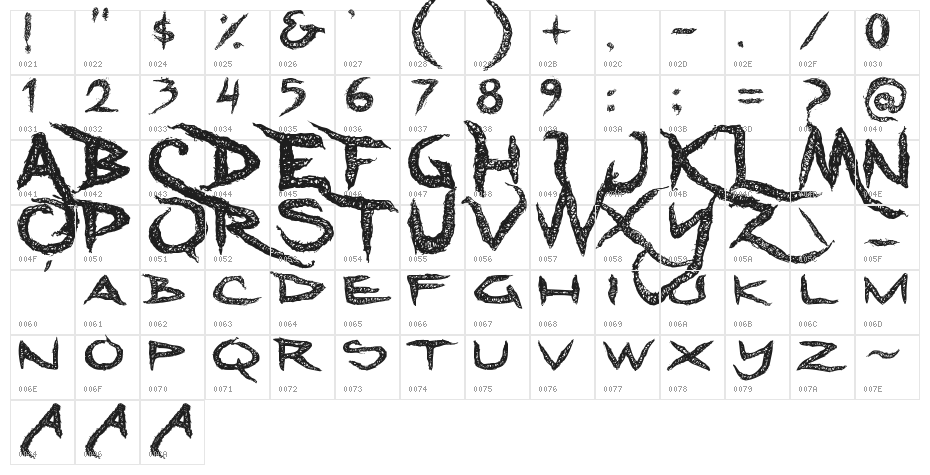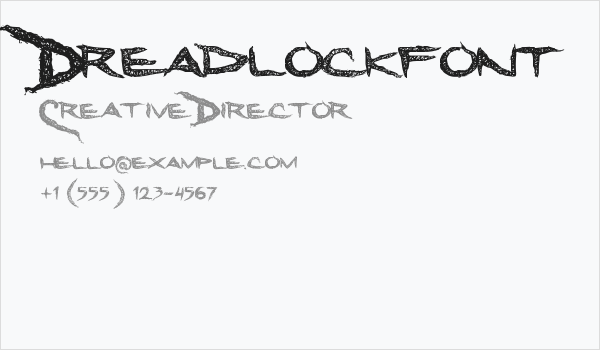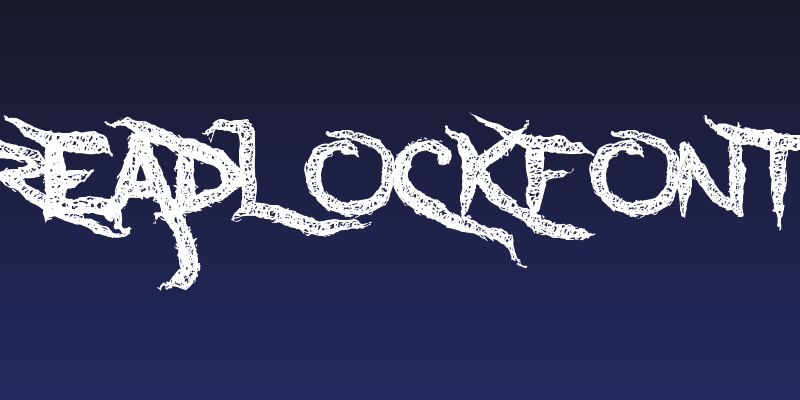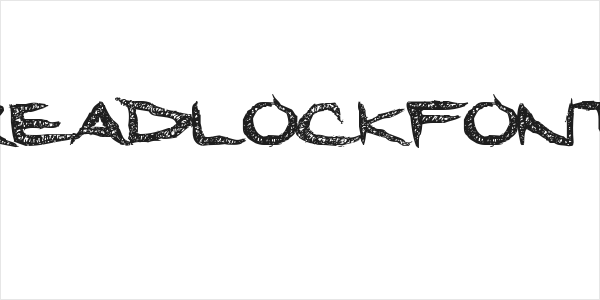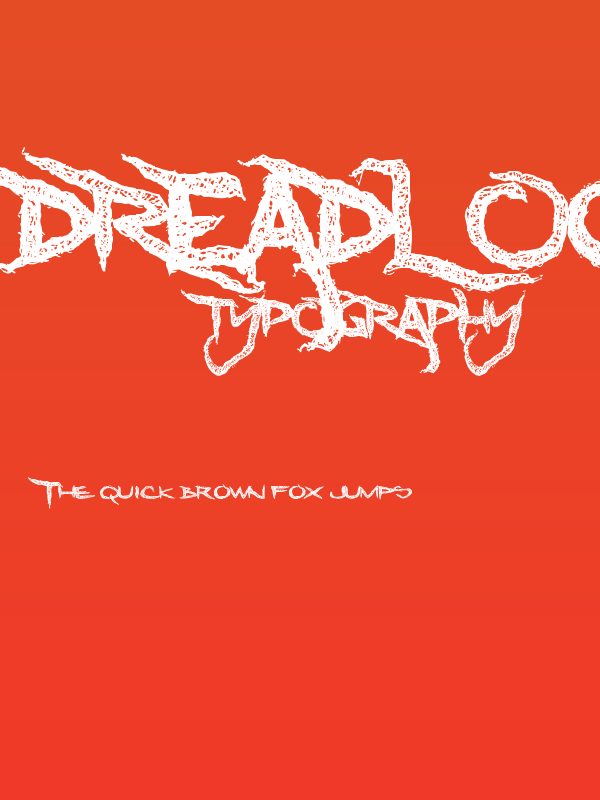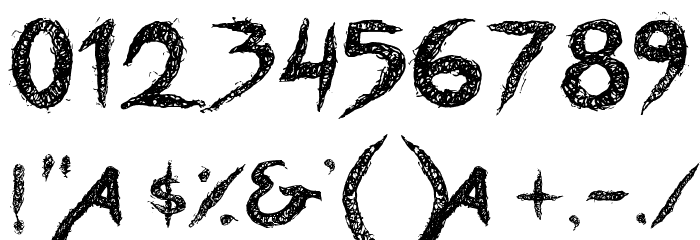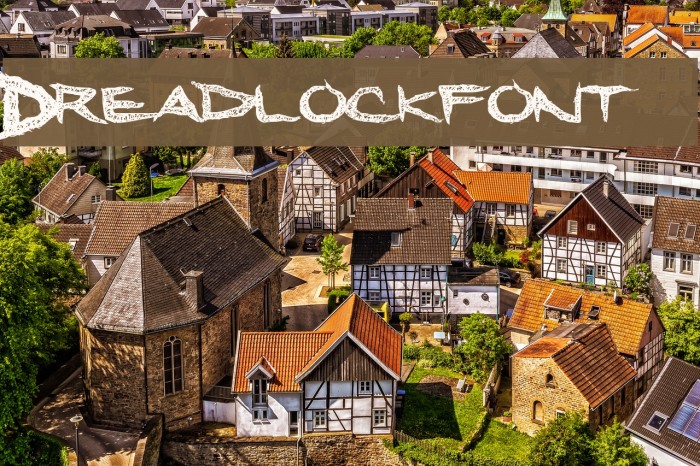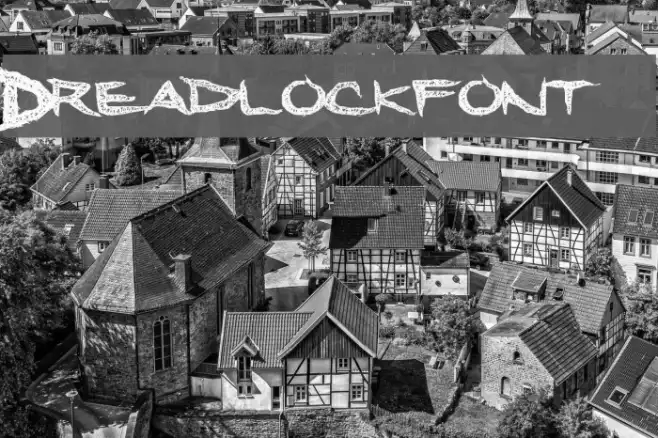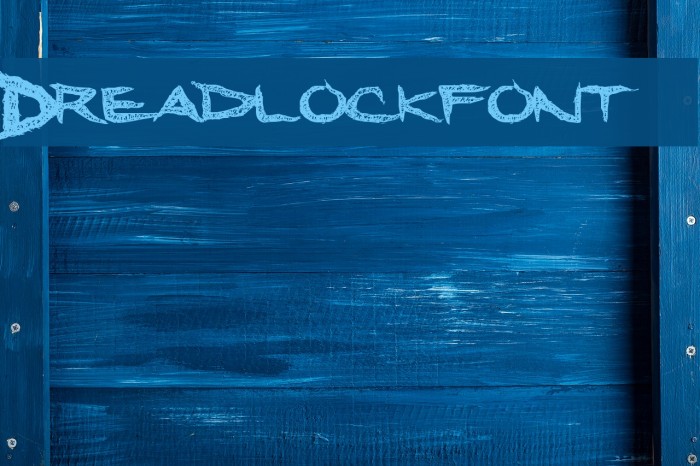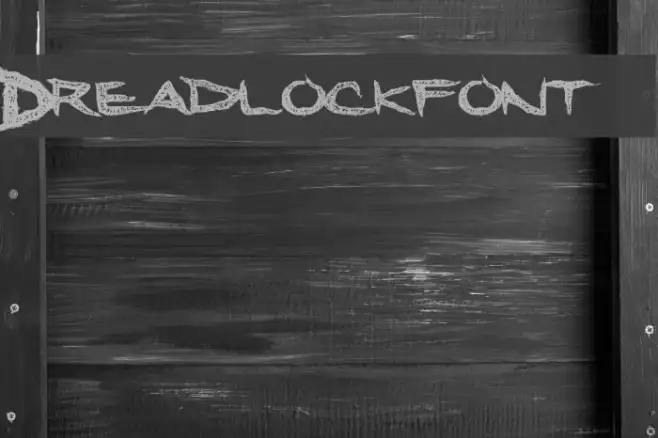
Dreadlockfont Font
Dreadlockfont Description
This font features a highly textured and distressed appearance, reminiscent of rough, hand-drawn strokes. The characters are bold and dynamic, with irregular edges that give a sense of movement and energy. The uppercase and lowercase letters maintain a consistent style, with exaggerated curves and sharp angles that create a unique, edgy look. Numbers and special characters follow the same design principles, ensuring a cohesive appearance across all glyphs. The font's overall aesthetic is raw and organic, making it stand out in any design project.
| Proposed Projects | Ideal for music album covers, streetwear branding, posters, and edgy graphic design projects. |